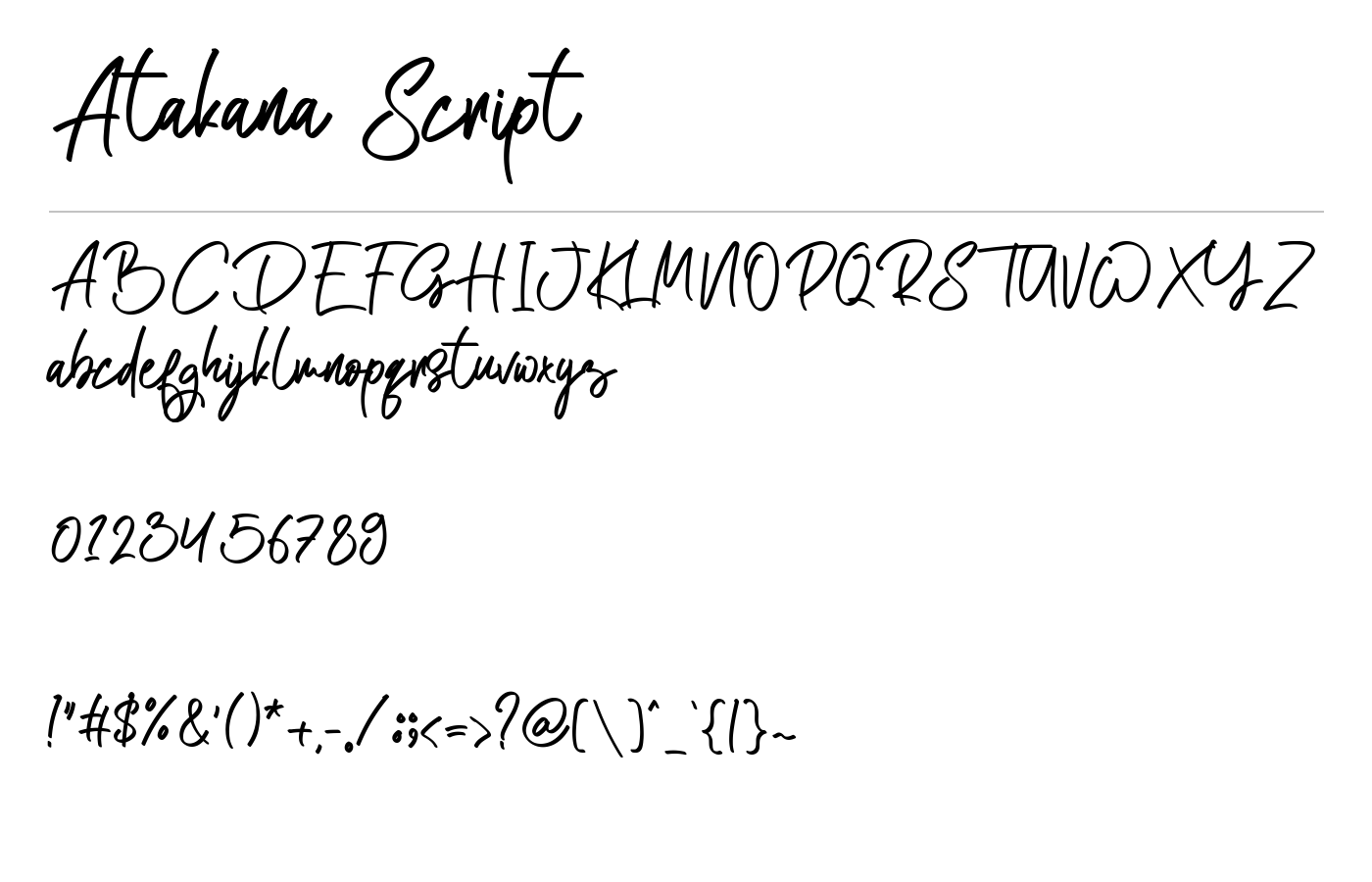
Atakana Script is a lively and elegant handwritten font featuring smooth, flowing strokes with varied thickness that evoke a natural, personal touch. Its tall, slender letterforms and clear legibility make it perfect for stylish branding, invitations, and creative projects that want to convey warmth and sophistication with a modern, artistic flair. This font works well in both headlines and short body text where an authentic, casual script feel is desired.
Atakana Script Font